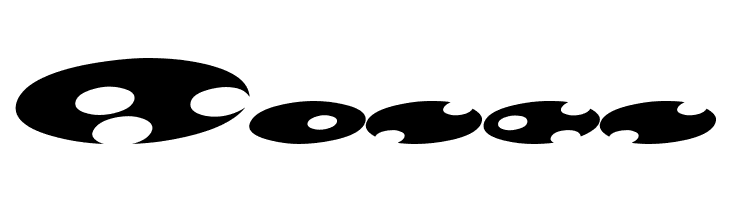
Capoon PERSONAL USE Black Italic Font
- Font: Capoon PERSONAL USE Black Italic
- Weight: Black Italic
A decorative font with geometric shapes and playful flourishes.